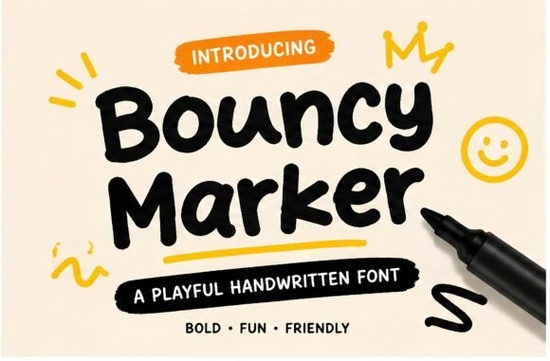
The Bouncy Marker Font is a versatile and lively typeface that brings a sense of playfulness to any design project. With its bold marker style and rounded, friendly letterforms, this font is ideal for adding a cheerful touch to everything from children's artwork to branding materials. Whether you're working on school projects, product packaging, or social media graphics, the Bouncy Marker Font offers a unique blend of simplicity and character that’s easy to use in both digital and print formats.
Designers and creators who want to add a fun, handwritten feel to their work will find the Bouncy Marker Font particularly useful. Its readable structure ensures clarity without sacrificing style, making it suitable for a wide range of applications. From greeting cards to logos, this font can help elevate your creative output with a personal and approachable aesthetic.
What Makes Bouncy Marker Font Stand Out?
The Bouncy Marker Font stands out thanks to its distinctive visual personality. Unlike more rigid or formal fonts, this one has a casual, almost playful vibe that makes it perfect for projects targeting younger audiences or those looking for a more relaxed tone. The letterforms are designed to look like they were drawn with a marker, giving them a handcrafted feel that adds warmth and uniqueness to any design.
Its boldness ensures that it remains legible even at smaller sizes, while the rounded edges make it visually appealing and easy on the eyes. This combination of readability and charm makes it a go-to choice for designers who want to maintain professionalism while still expressing creativity.
Best Uses for Bouncy Marker Font
This font is especially well-suited for projects that require a friendly and approachable look. For example, it works great for children's books, classroom materials, and educational content. It also shines in promotional materials such as posters, stickers, and product labels. If you're creating content for social media or designing for a small business, the Bouncy Marker Font can help you communicate your message with a sense of energy and positivity.
For print-on-demand sellers, this font can be a valuable addition to your library. It’s ideal for t-shirts, mugs, and other merchandise that benefits from a handwritten, personalized touch. Its versatility allows it to fit into both modern and traditional design styles, depending on how you use it.
How to Use Bouncy Marker Font Effectively
To get the most out of the Bouncy Marker Font, consider pairing it with simpler typefaces for contrast. For instance, using it as a headline with a clean sans-serif font for body text can create a balanced and professional look. Experimenting with different colors and backgrounds can also help highlight the font’s playful nature.
When working on digital projects, make sure to test the font at various sizes to ensure it remains readable. For print designs, check how it appears on different paper types and under different lighting conditions. These small details can make a big difference in the final outcome.
Final Thoughts
The Bouncy Marker Font is a great choice for anyone looking to add a bit of fun and personality to their designs. Its bold, playful style makes it ideal for a wide range of creative projects, from children's art to commercial branding. Whether you're a designer, crafter, or small business owner, this font can help you express your ideas in a fresh and engaging way.